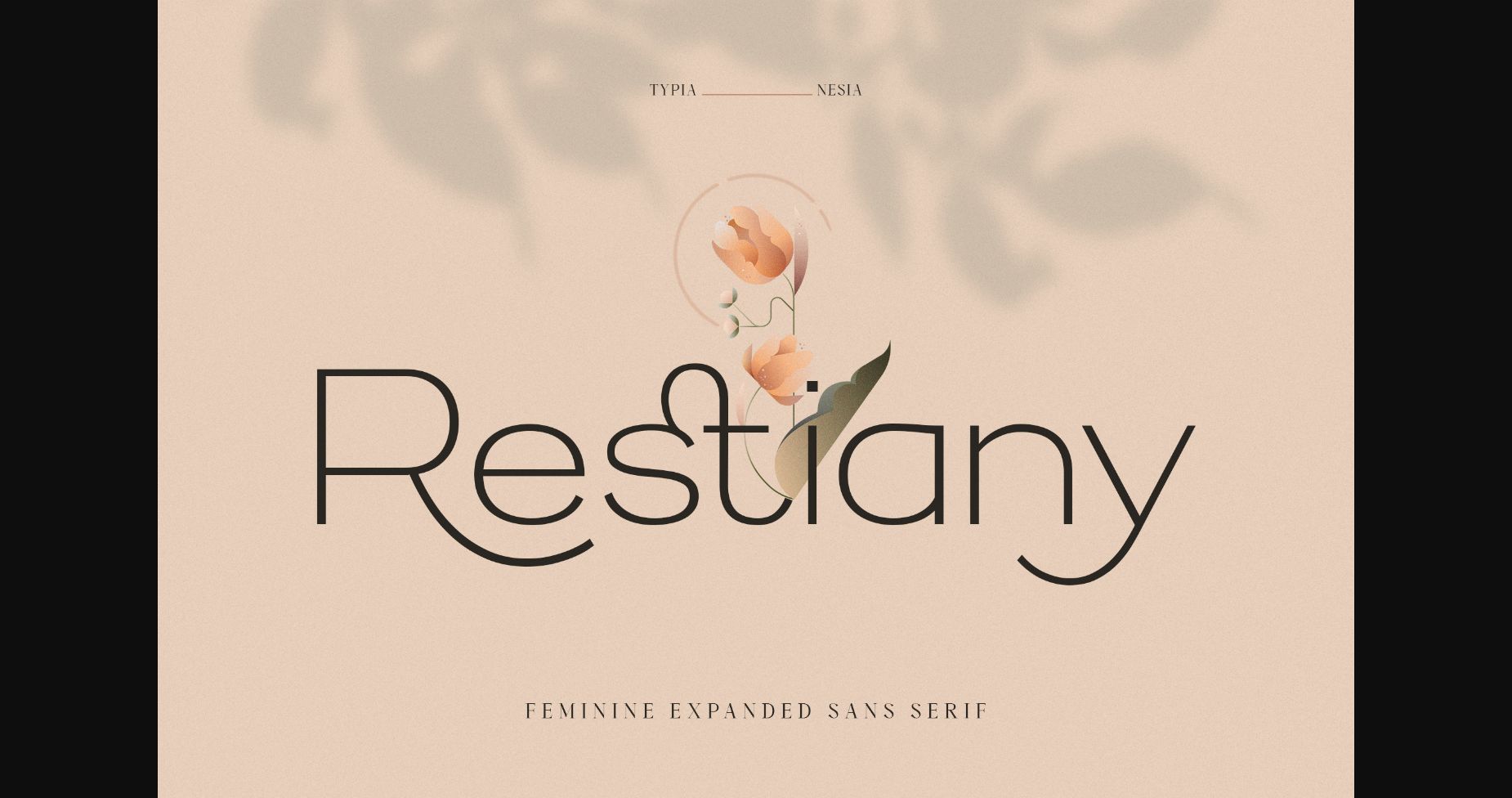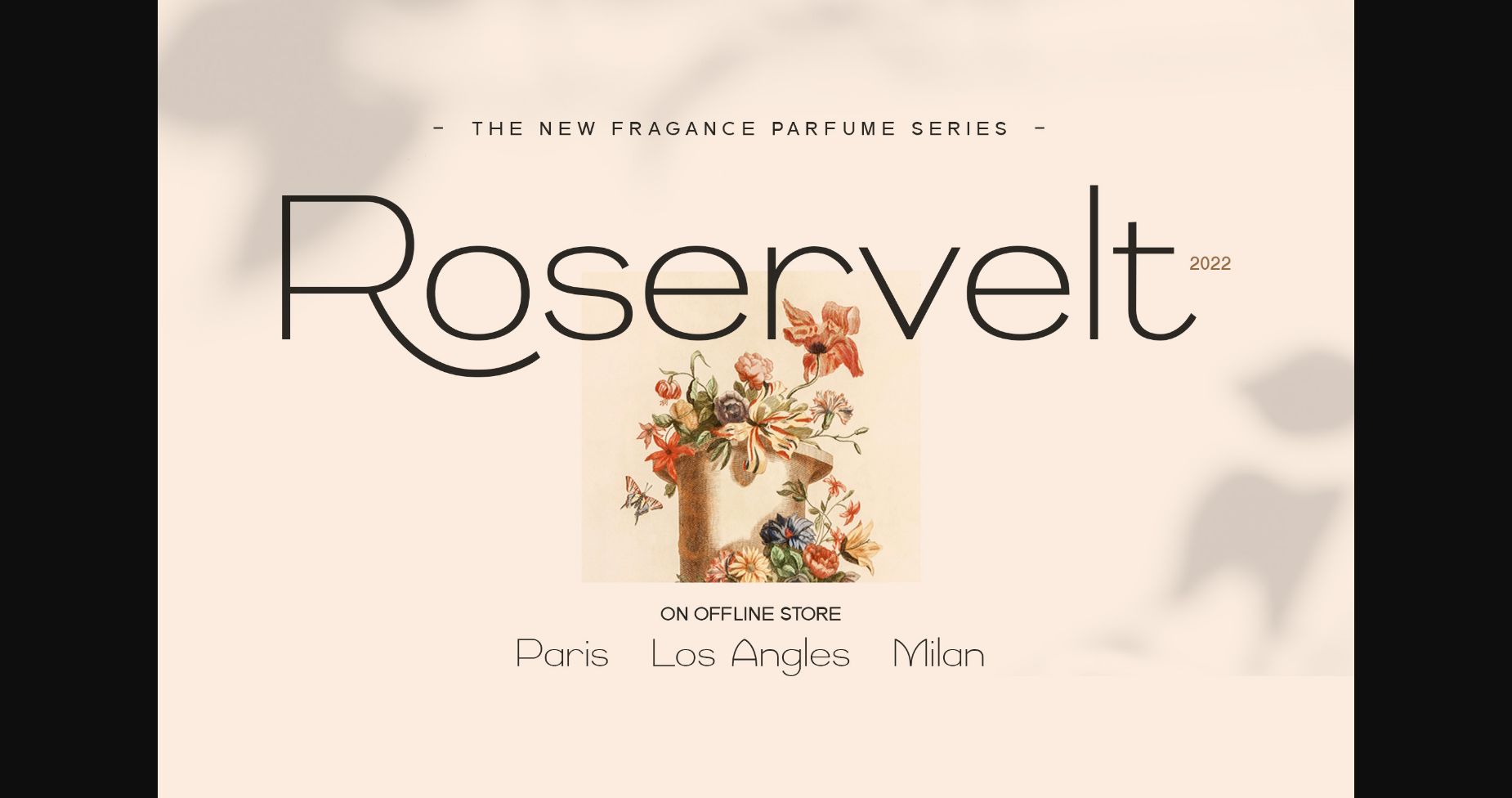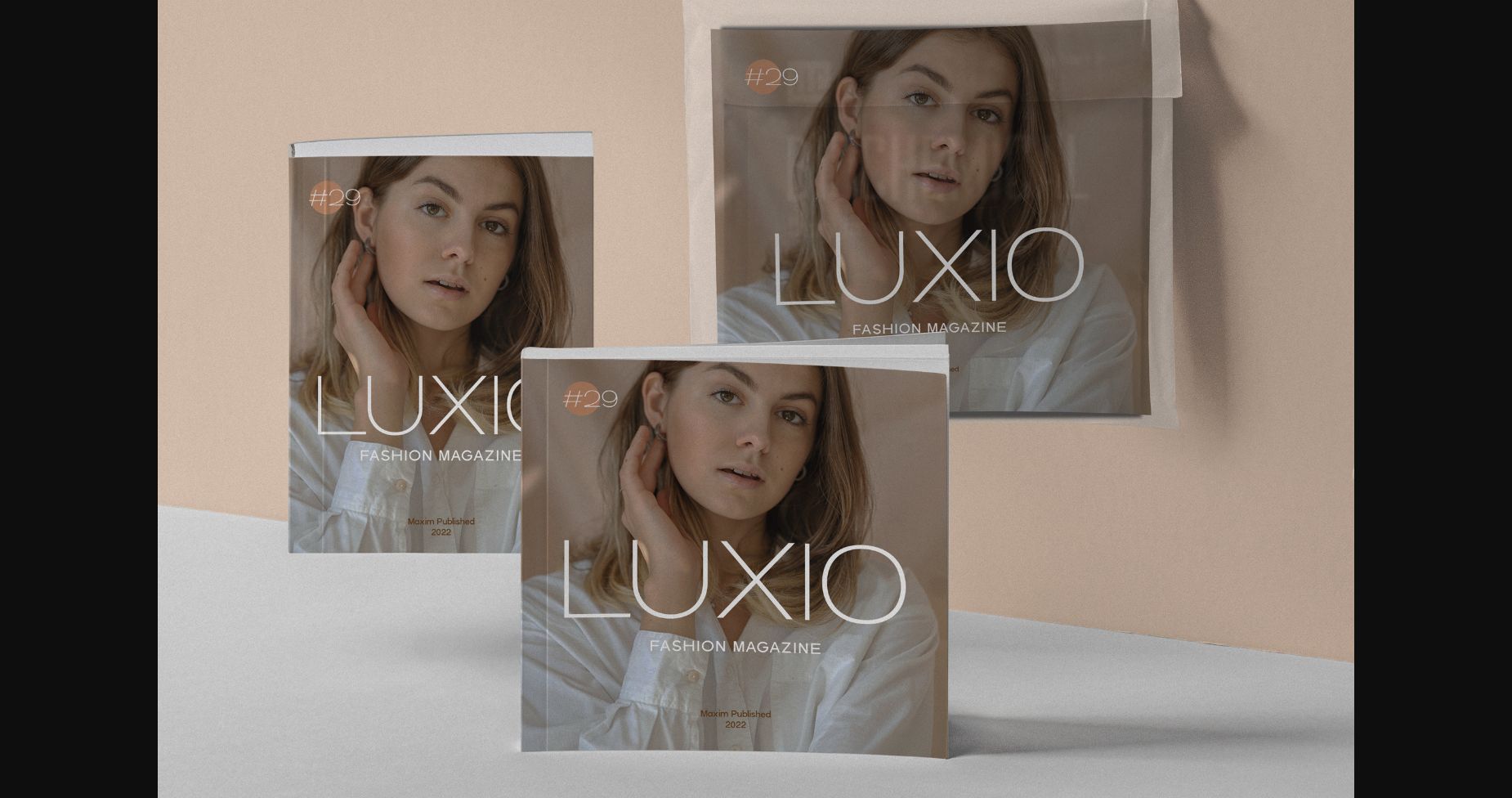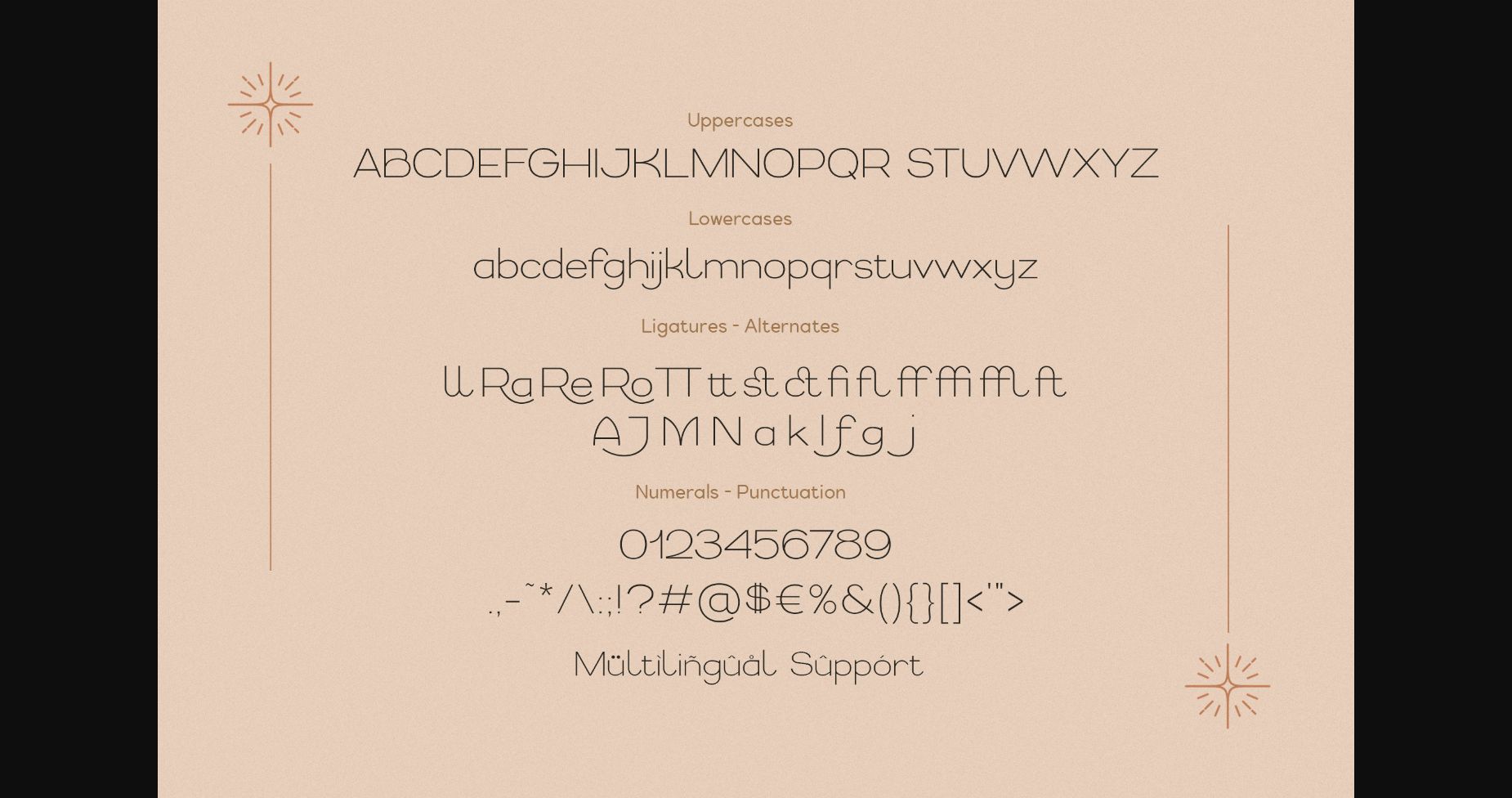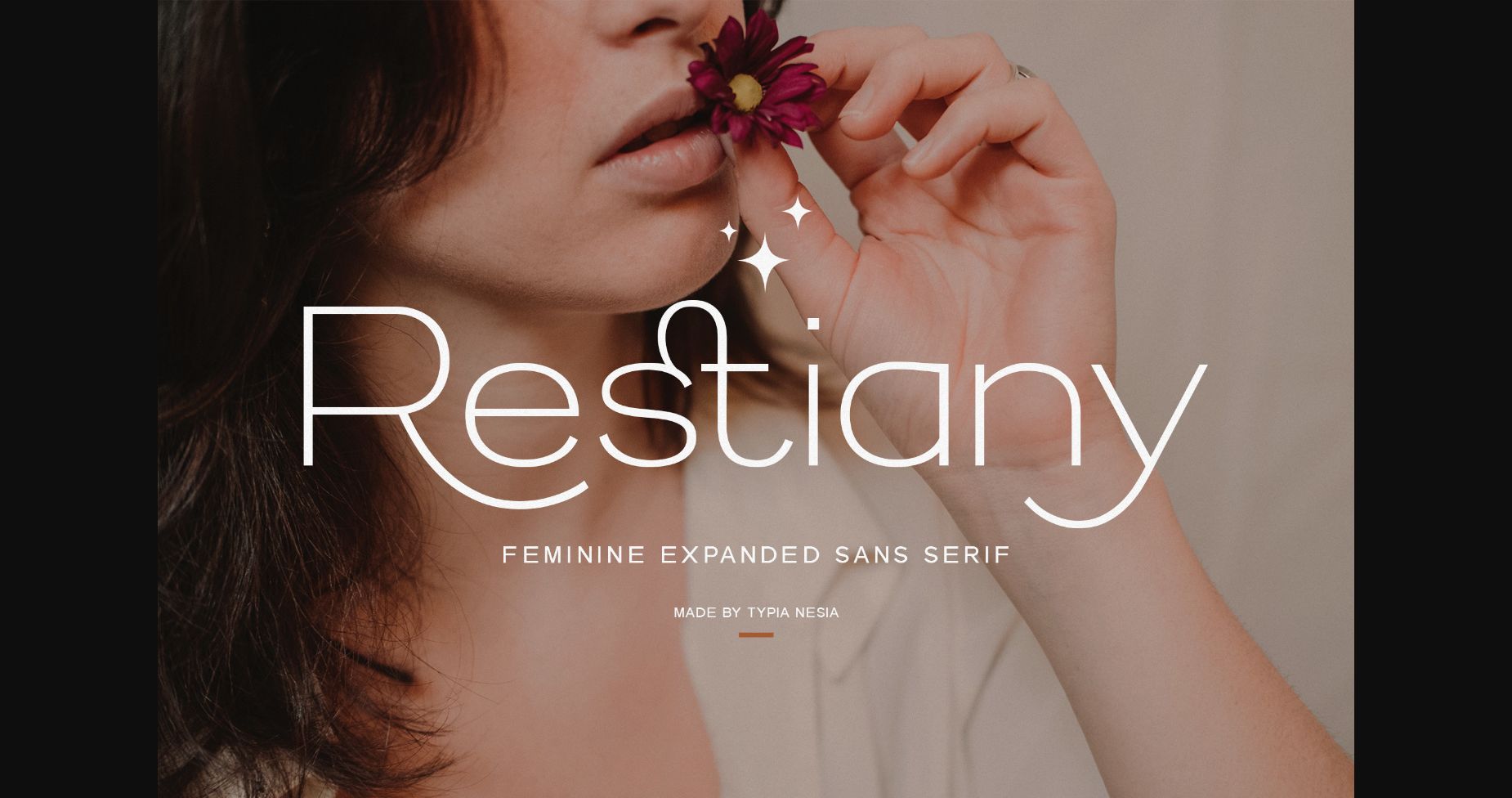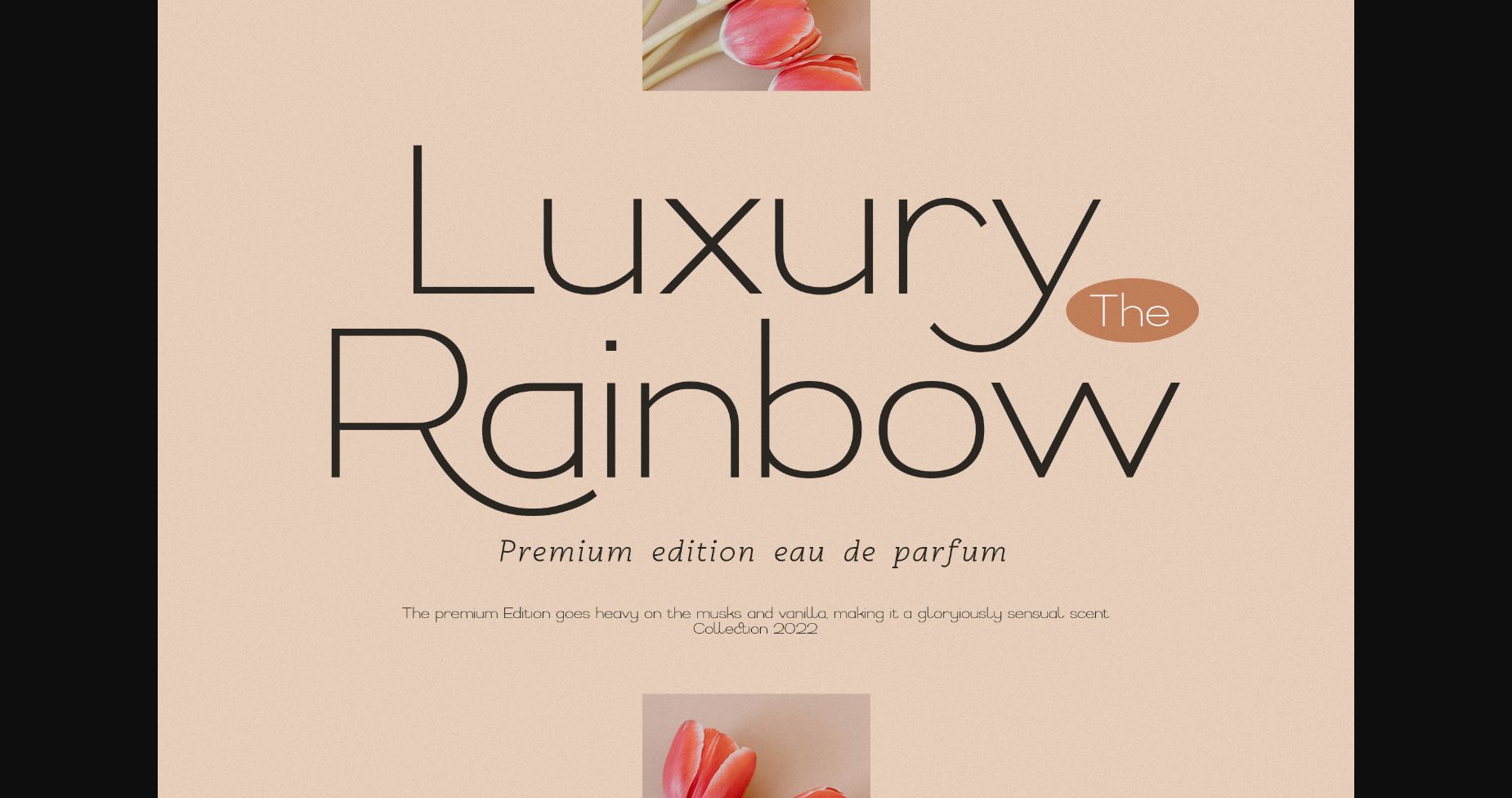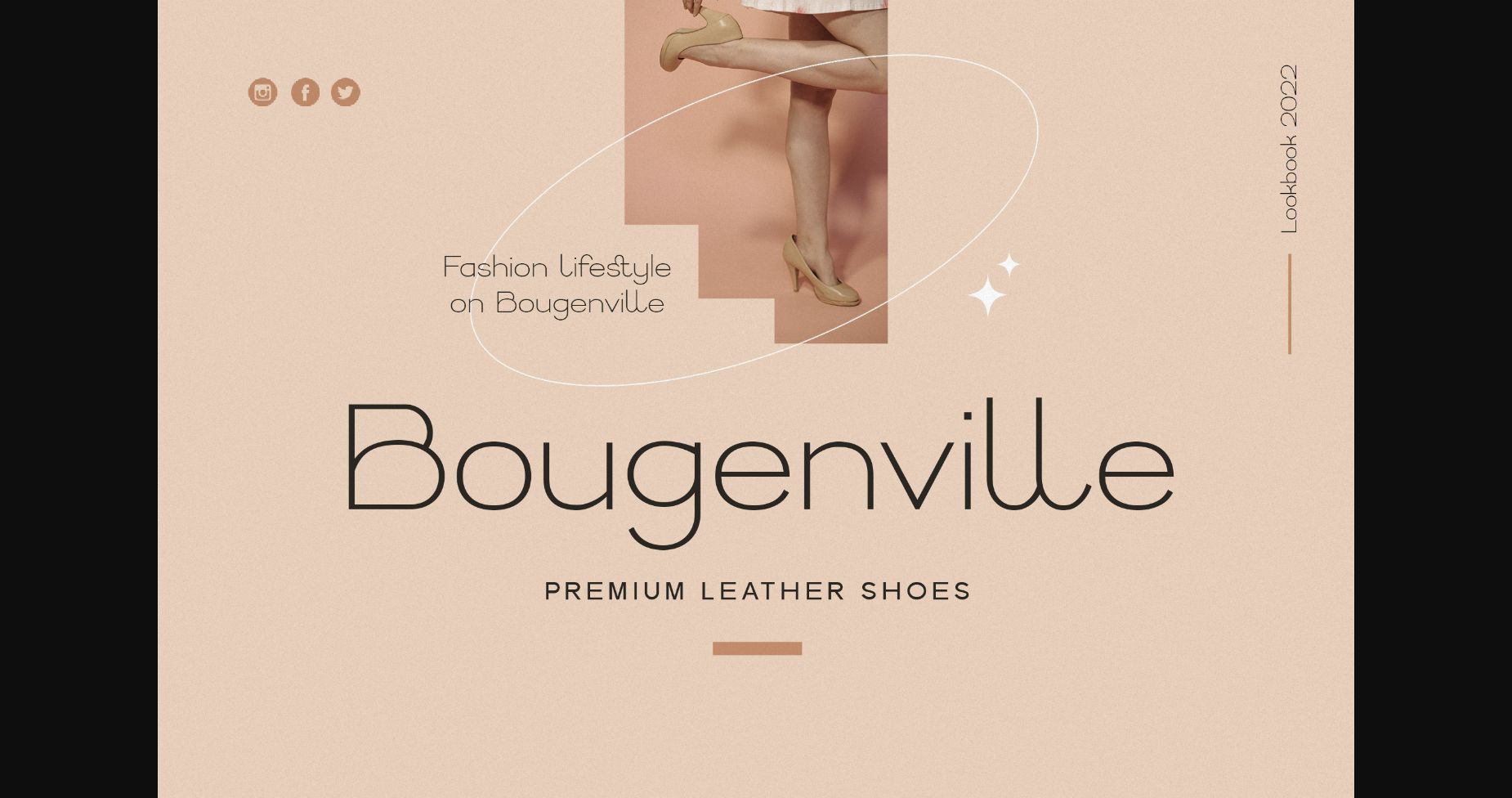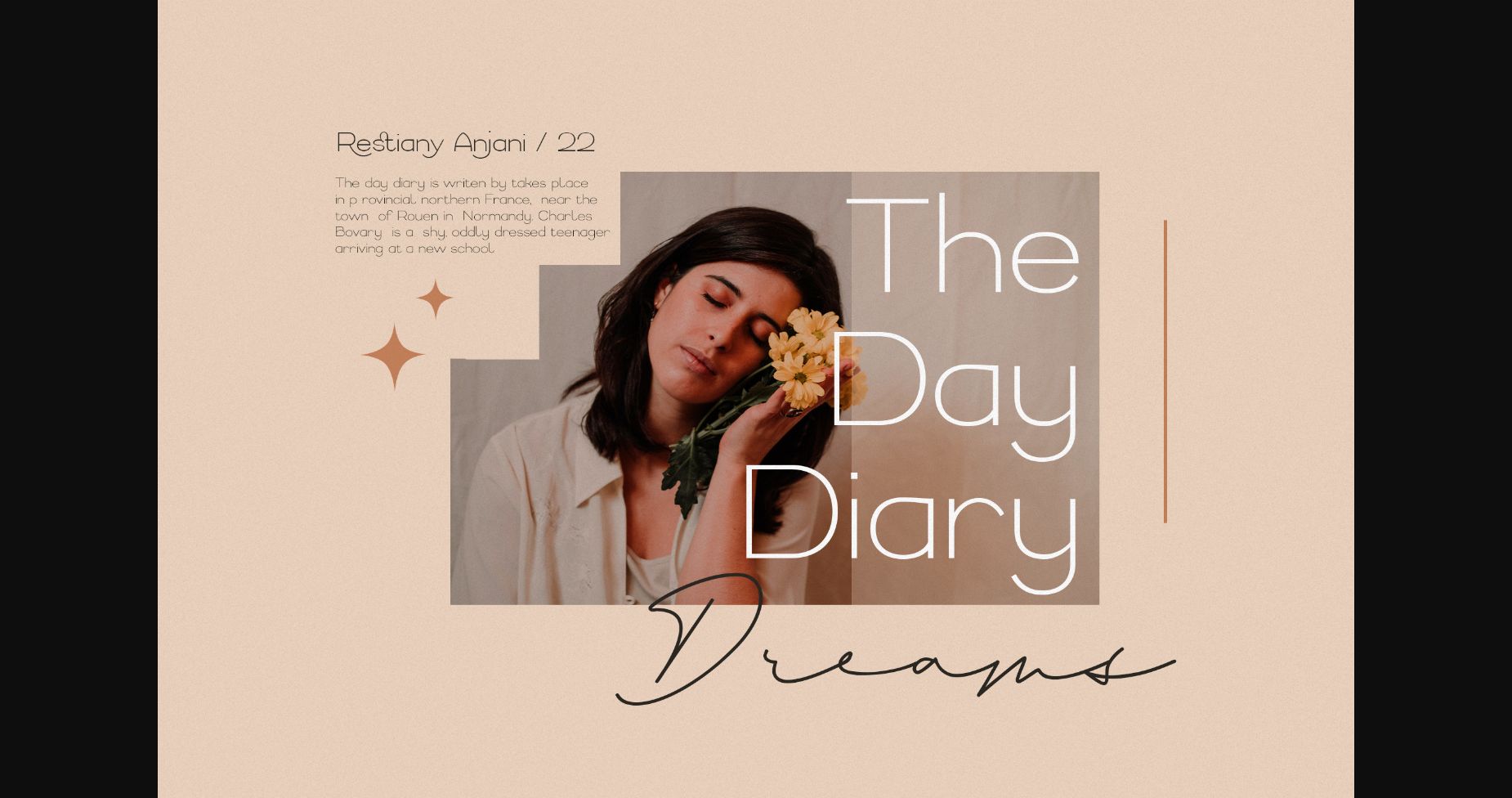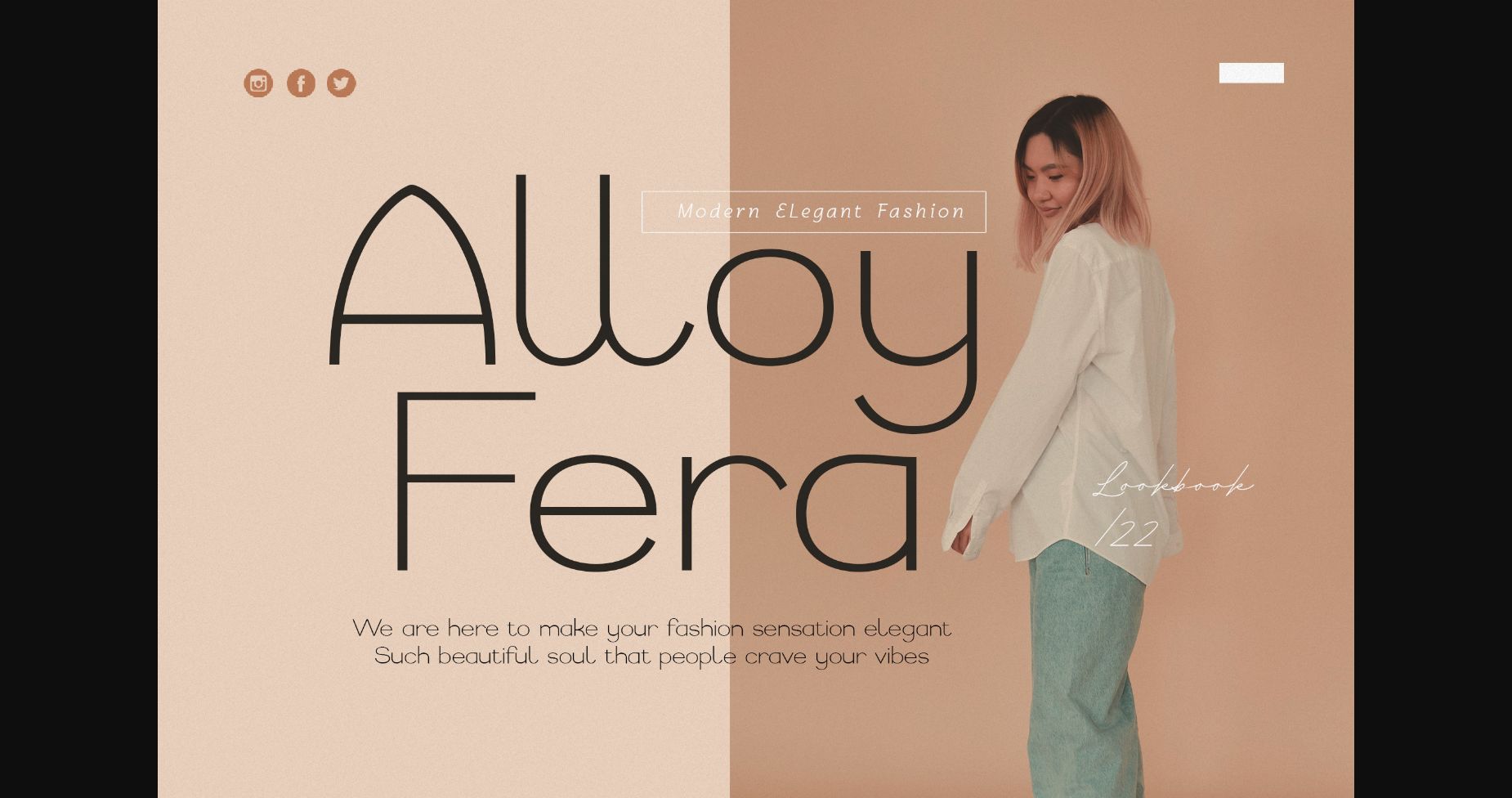
Restiany Font
About Restiany Font
Restiany is a stylish and elegant sans serif font. It is suitable for any projects such as: logos, branding projects, label, photography, watermark, special events, and all your other lovely projects that need a beautiful script taste.